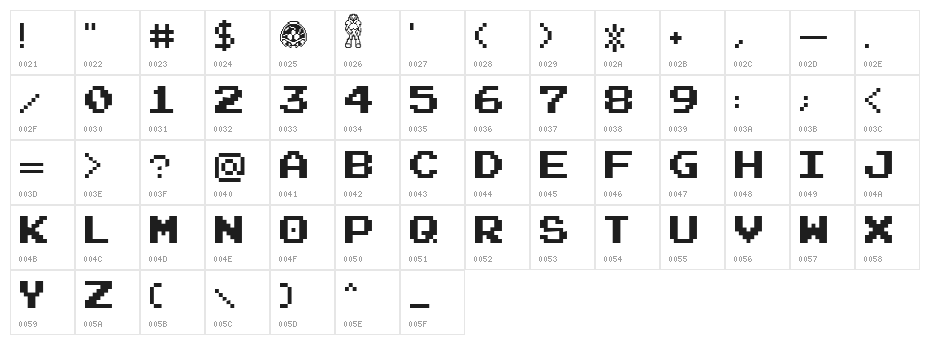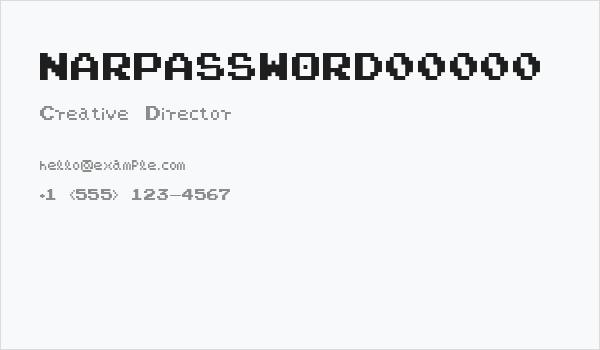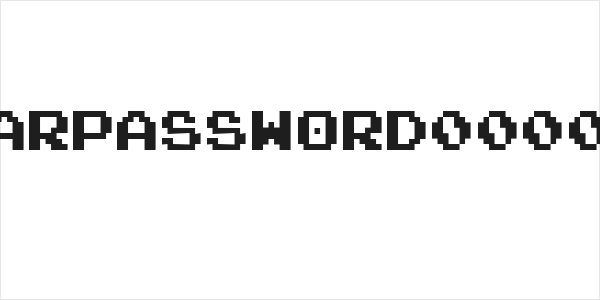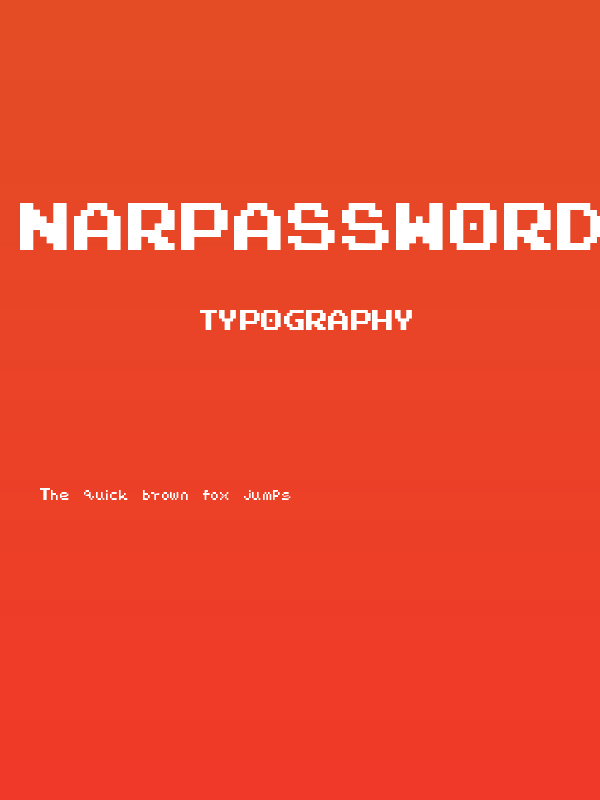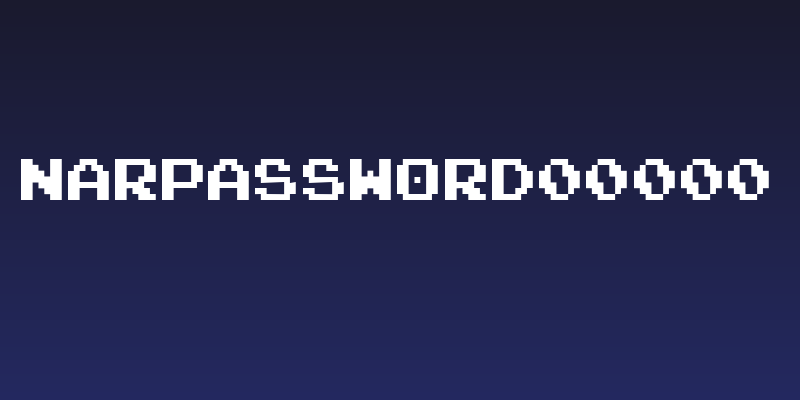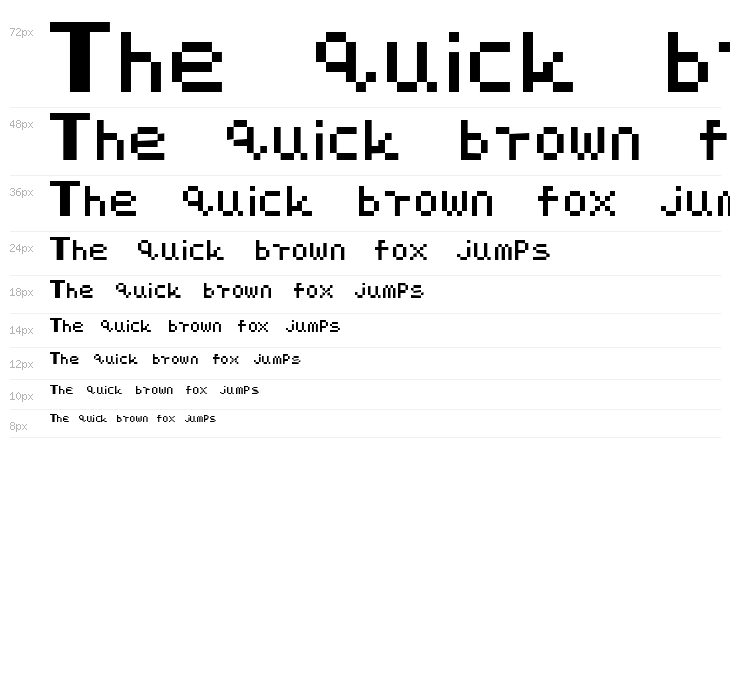
NARPASSWORD00000 Font
NARPASSWORD00000 Description
This font is a pixelated, block-style typeface that evokes a retro, digital aesthetic reminiscent of early video game graphics. Each character is composed of uniform square pixels, giving it a distinctly geometric and grid-like appearance. The uppercase and lowercase letters maintain a consistent height, contributing to a monospaced feel, although the font itself is not strictly monospaced. The numerals and special characters follow the same pixelated design, ensuring a cohesive look across all glyphs. This font's nostalgic charm makes it ideal for projects that aim to capture the essence of vintage computing or gaming.
| Use Case | Logos, Headlines, Digital Art |
| Proposed Projects | Ideal for retro video game designs, digital art projects, and nostalgic branding. |